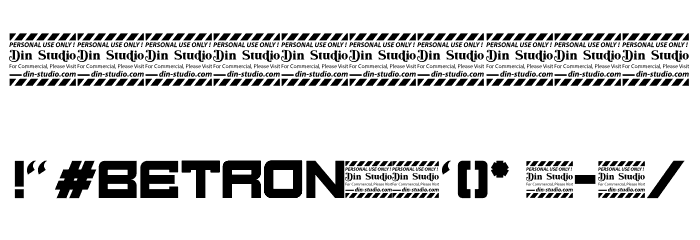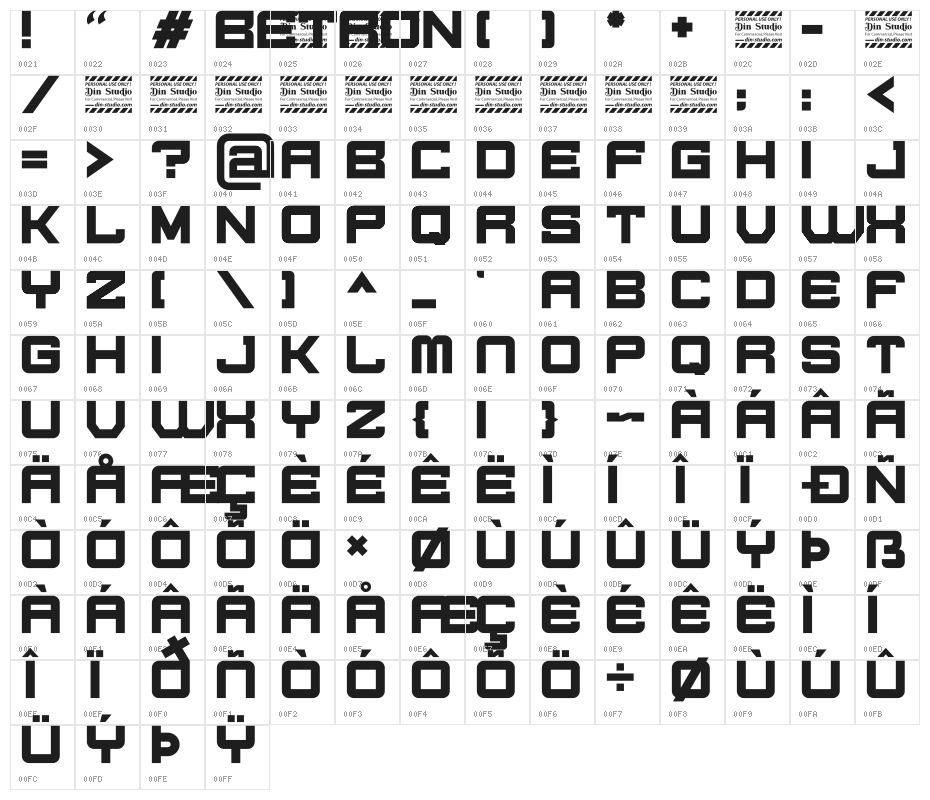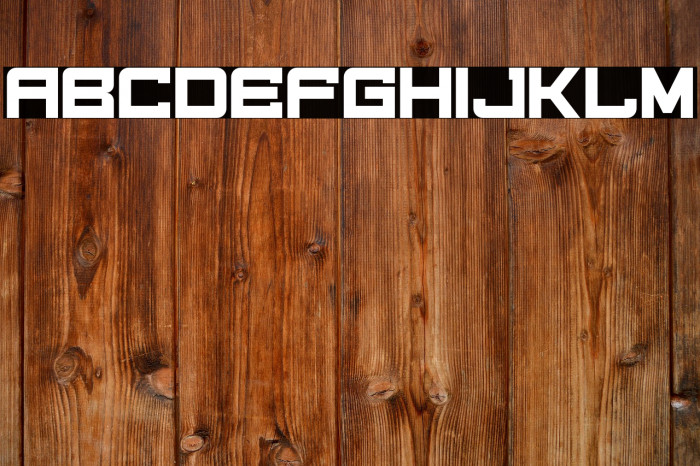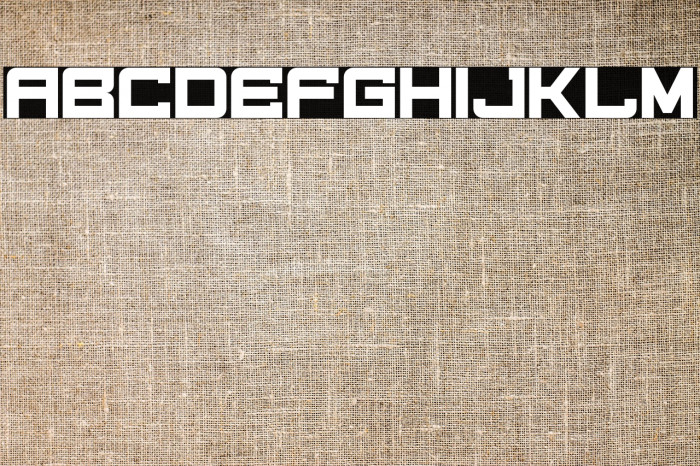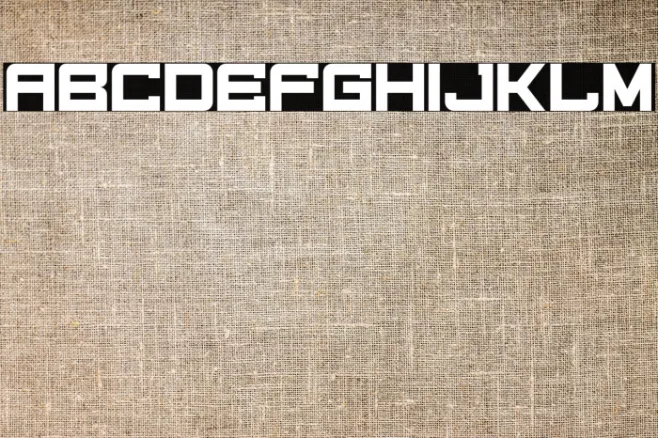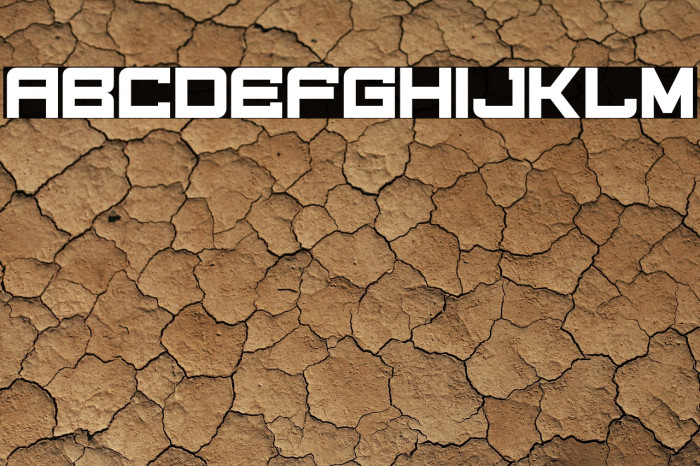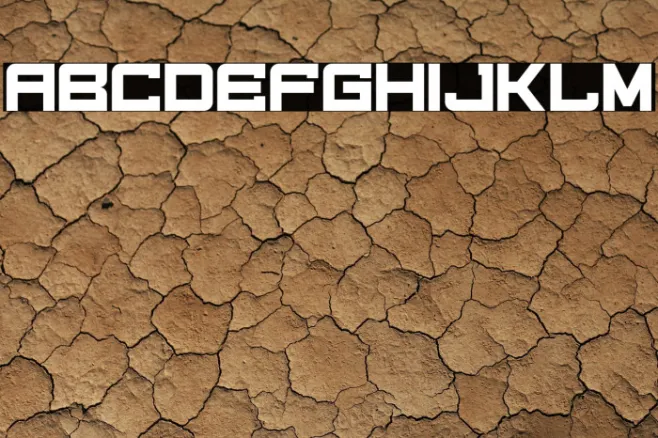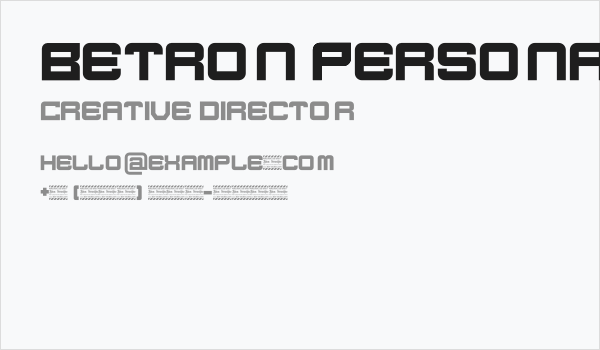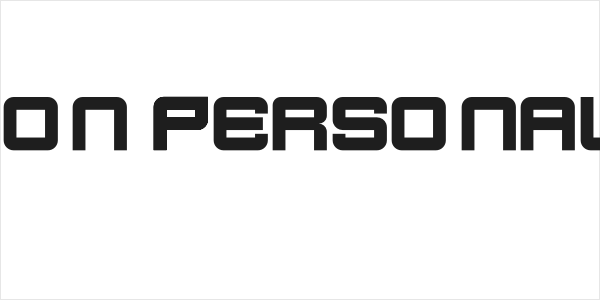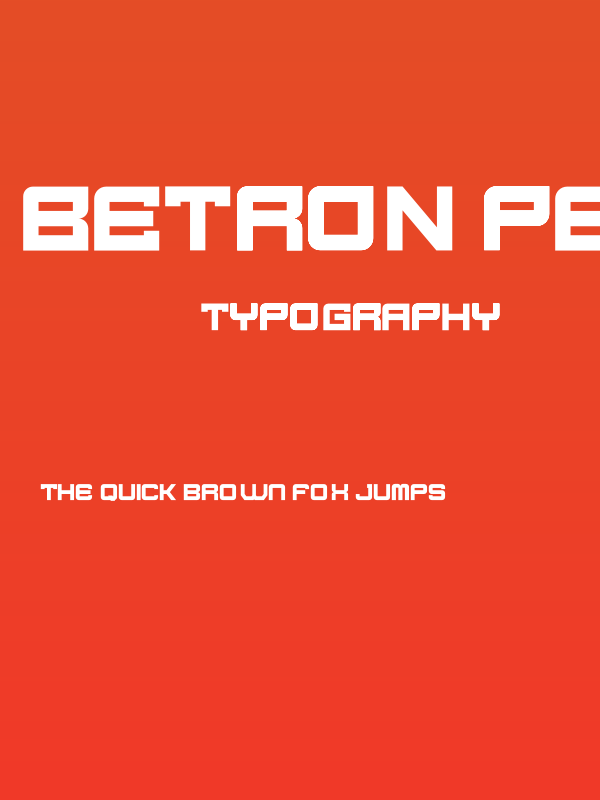
Betron Personal Use Font
Betron Personal Use Description
This font features a bold, geometric design with a futuristic and industrial feel. The characters are constructed with sharp angles and straight lines, giving it a modern and edgy appearance. The uppercase and lowercase letters maintain a consistent style, with a uniform height and width that creates a cohesive look. The numbers and special characters are designed to match the overall aesthetic, ensuring a seamless integration across different uses. The font's unique style makes it suitable for projects that require a strong, impactful visual presence.